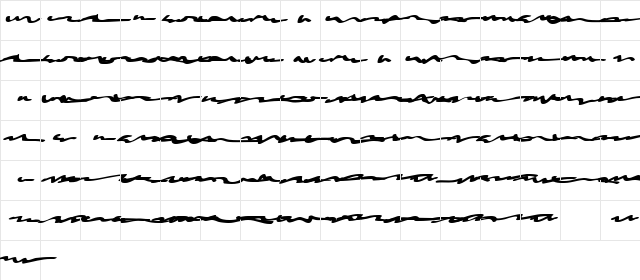
MumbleGrumble I BB Regular Free Font
MumbleGrumble I BB Regular
Foundry: Nate Piekos. Blambot.com
Designer: Nate Piekos
Design Context for MumbleGrumble I BB
MumbleGrumble I BB is a composed and adaptable typeface that performs quietly and consistently across a wide range of design contexts.